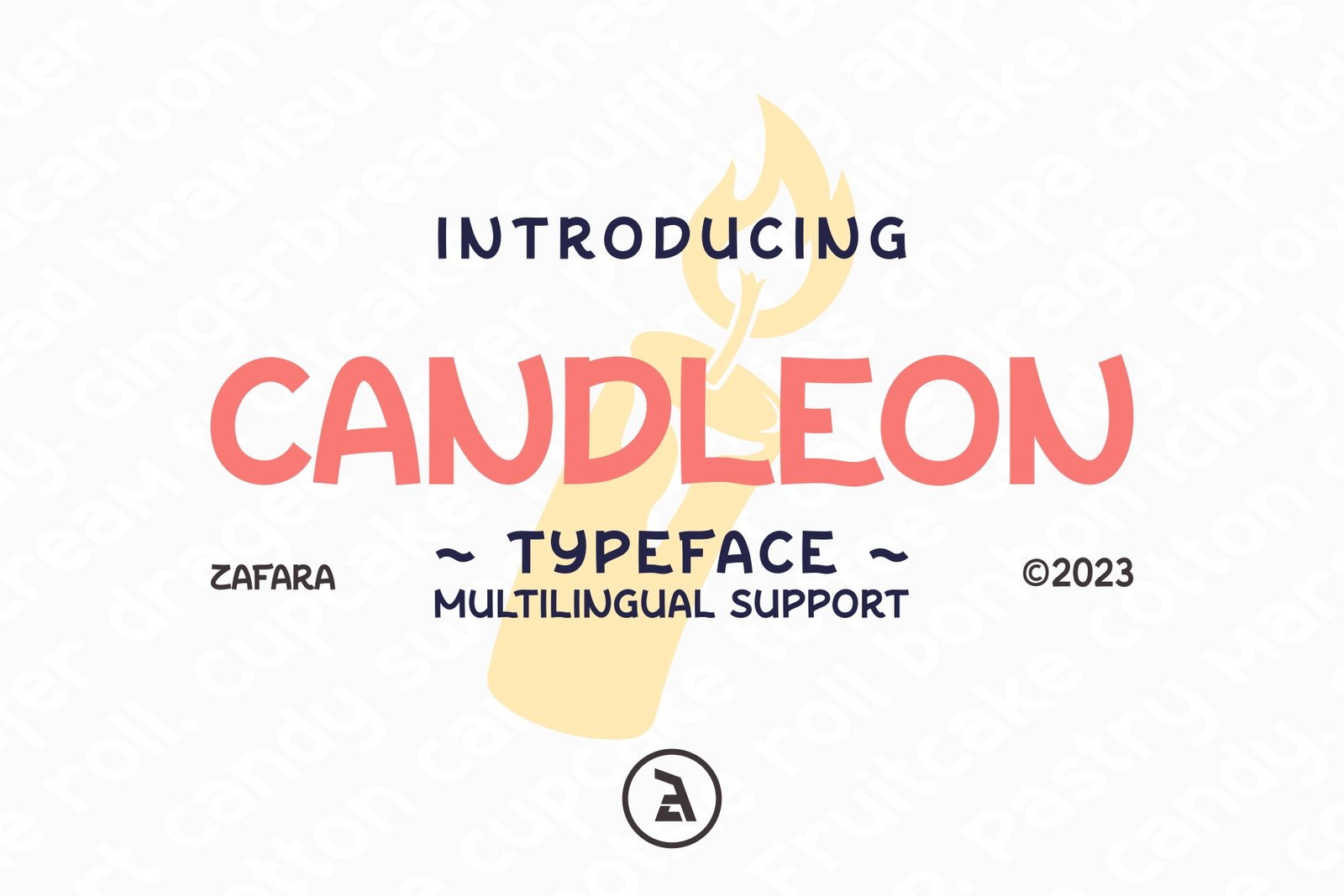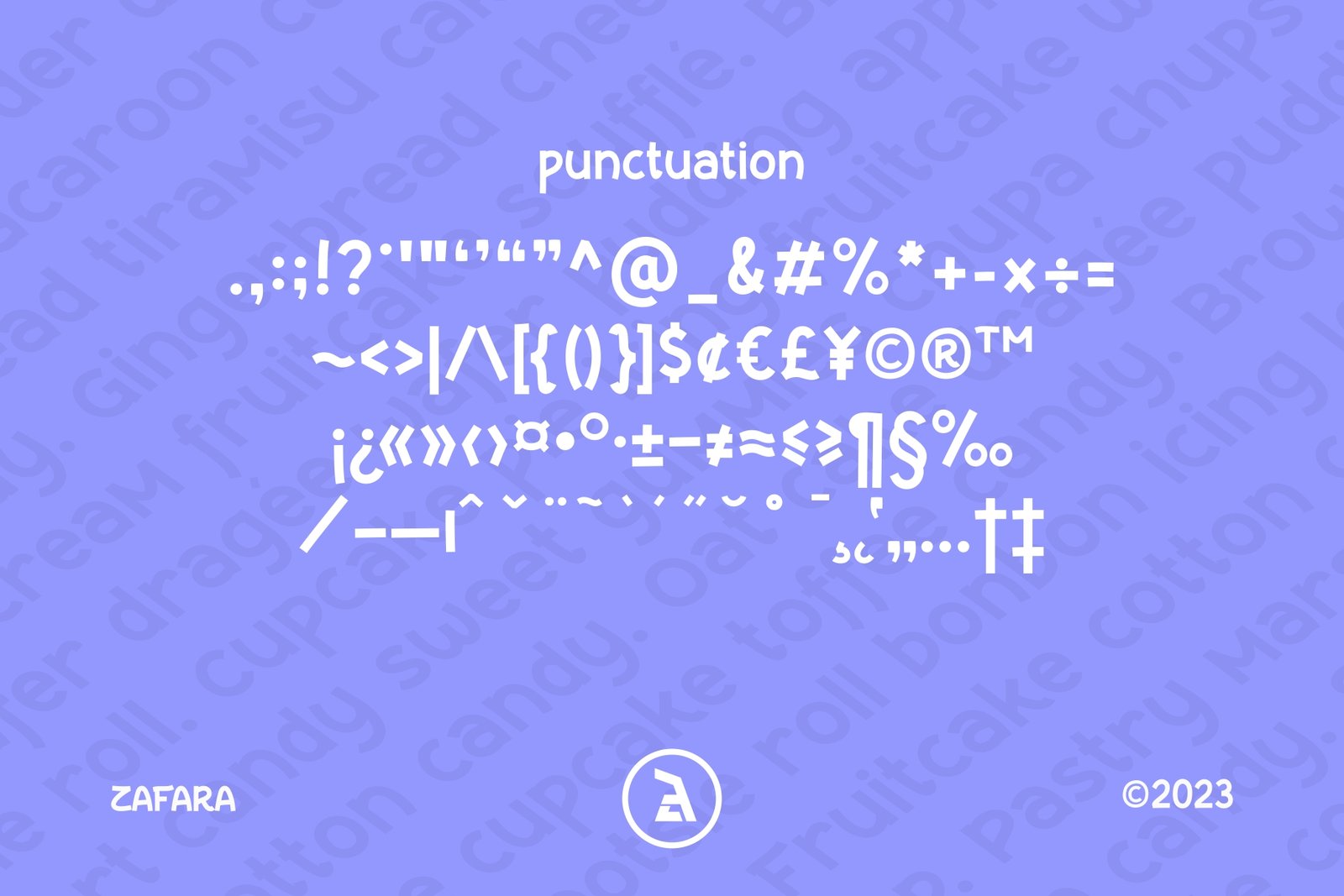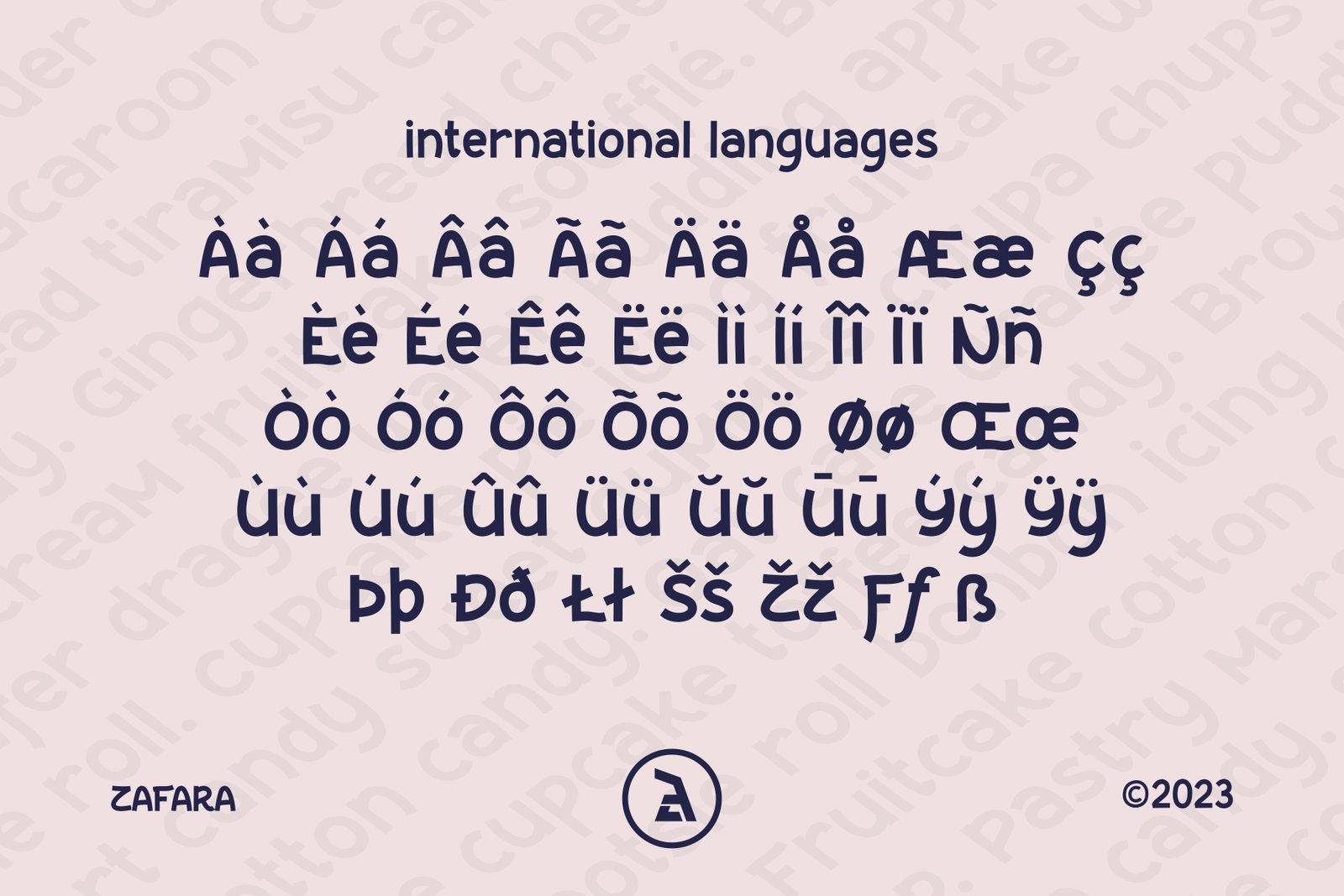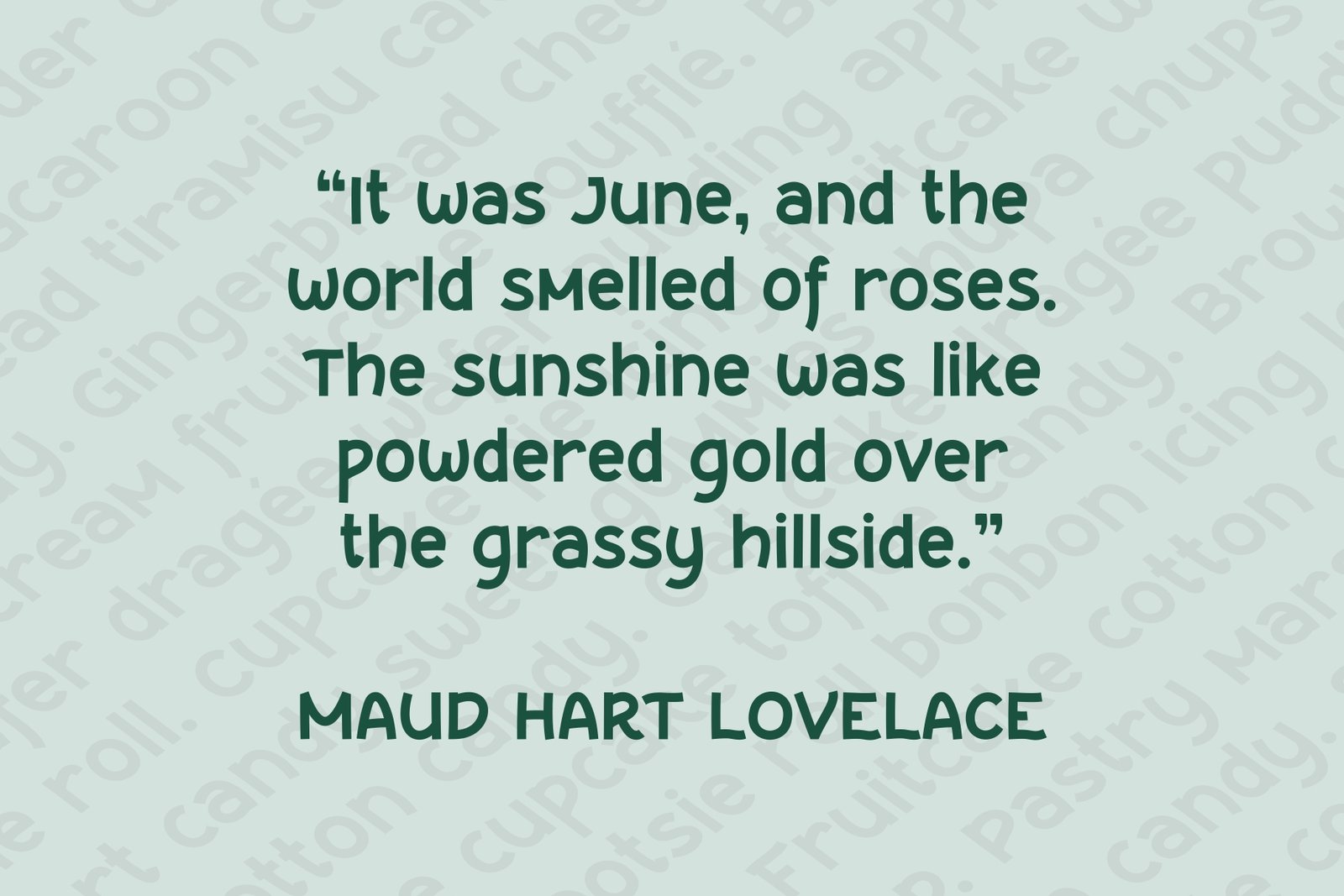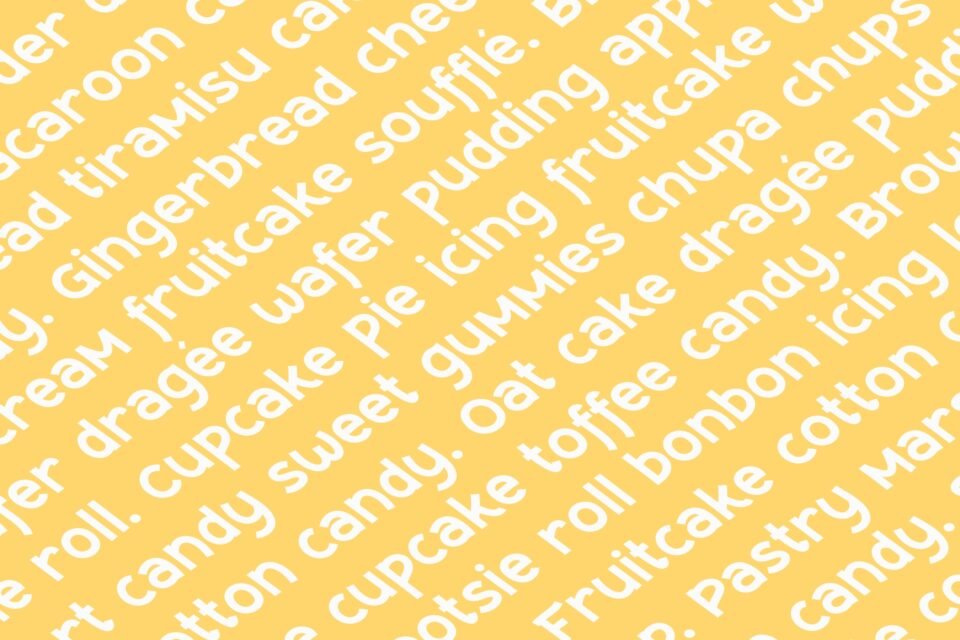
Introducing Candleon typeface, a sweet and playful display font with multilingual support.
Full alphabet and numbers for the Candleon display font, showing both uppercase and lowercase letters.
A complete list of punctuation, symbols, and special characters included with the Candleon font.
A display of international and accented characters supported by the Candleon typeface.
An example of the Candleon font used for a quote by Maud Hart Lovelace, showcasing its readability and style.
A seamless pattern made with the Candleon font, featuring a list of sweet treats.
Candleon Playful Display Font is a sweet and playful display font that adds a charming touch to any project. It has rounded shapes and a friendly design. This makes the typeface perfect for eye-catching headlines, logos, product packaging, and social media graphics. Its cheerful and versatile style makes it ideal for themes like children’s products and candy shop branding. Overall, Candleon Playful Display Font brings warmth and joy to every creative project.
• Glyphs: Candleon includes a full set of uppercase and lowercase letters, numbers, punctuation, and a wide range of special symbols.
• Multilingual: Designed for global use, the font supports multiple languages with an extensive character set.
• Language Support: It features comprehensive support for many European and Latin-based languages, including but not limited to English, French, Spanish, German, Italian, and Portuguese.
Candleon
Candleon Playful Display Font is a sweet and friendly typeface with rounded shapes, perfect for eye-catching logos, product packaging, and cheerful designs like children’s products or candy shop branding.